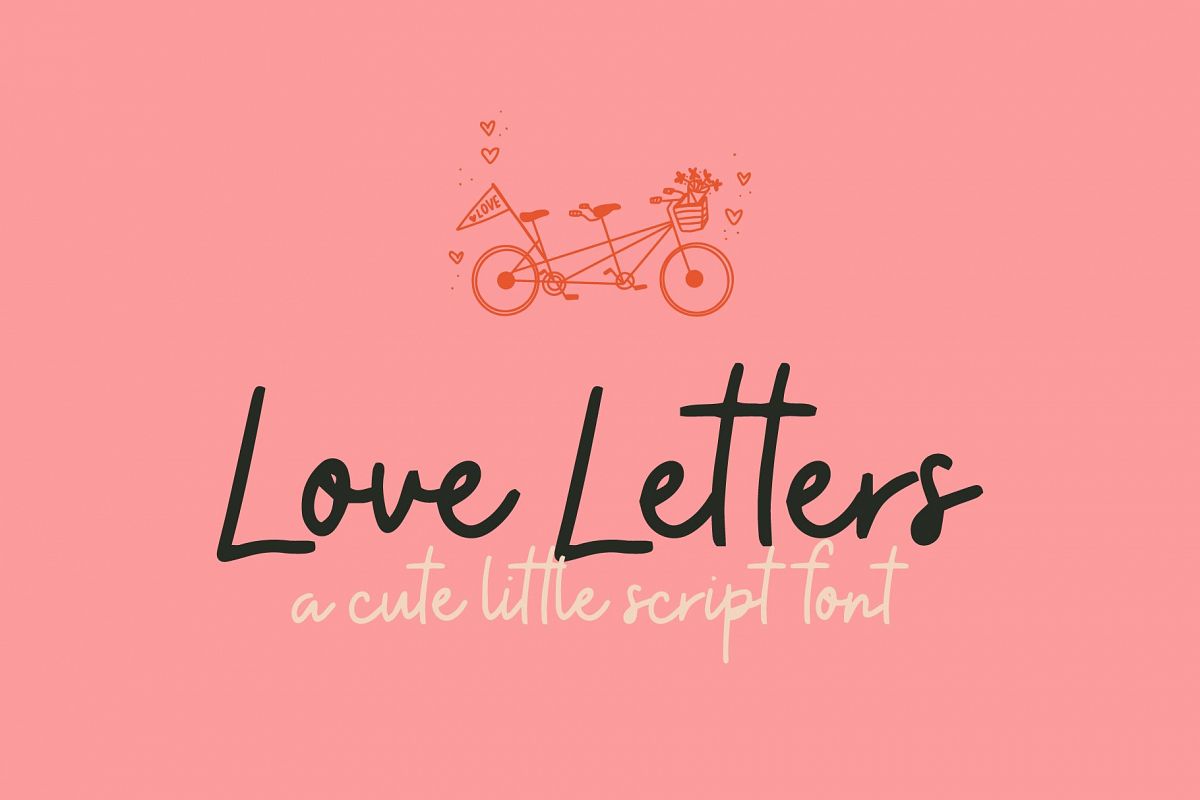
Lover Letters | Cute Script Font
Love Letters is a handmade script font that it equal parts adorable and edgy. With flawless ease, this font can be the girl next door or the bad boy on the other side of town. Great for posters, branding, large projects and small!